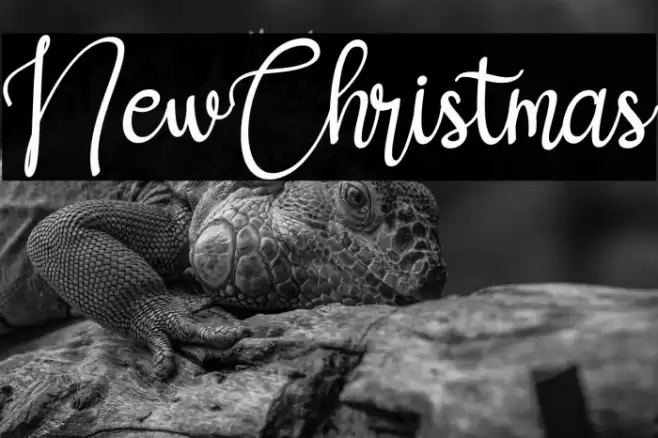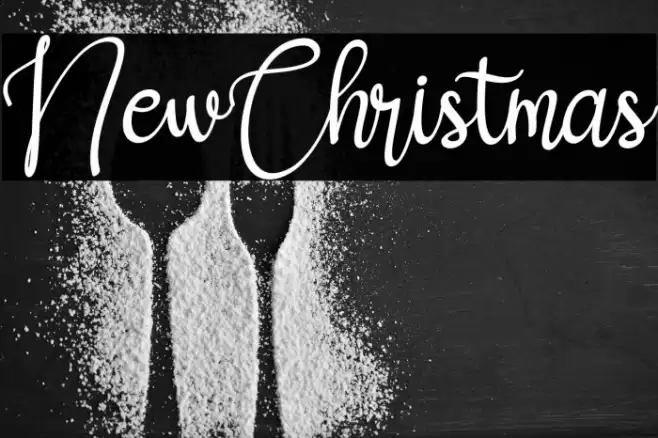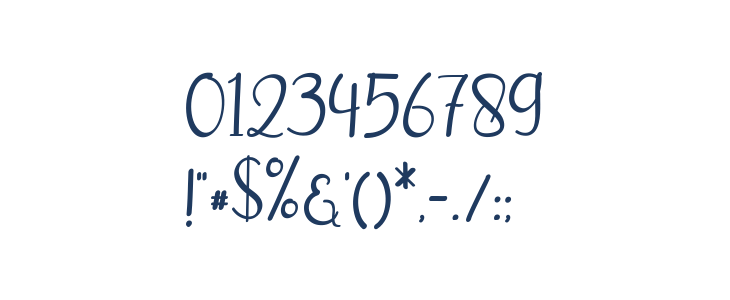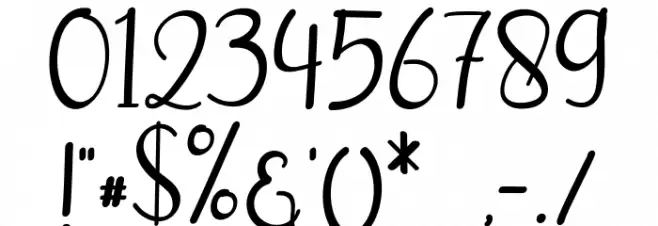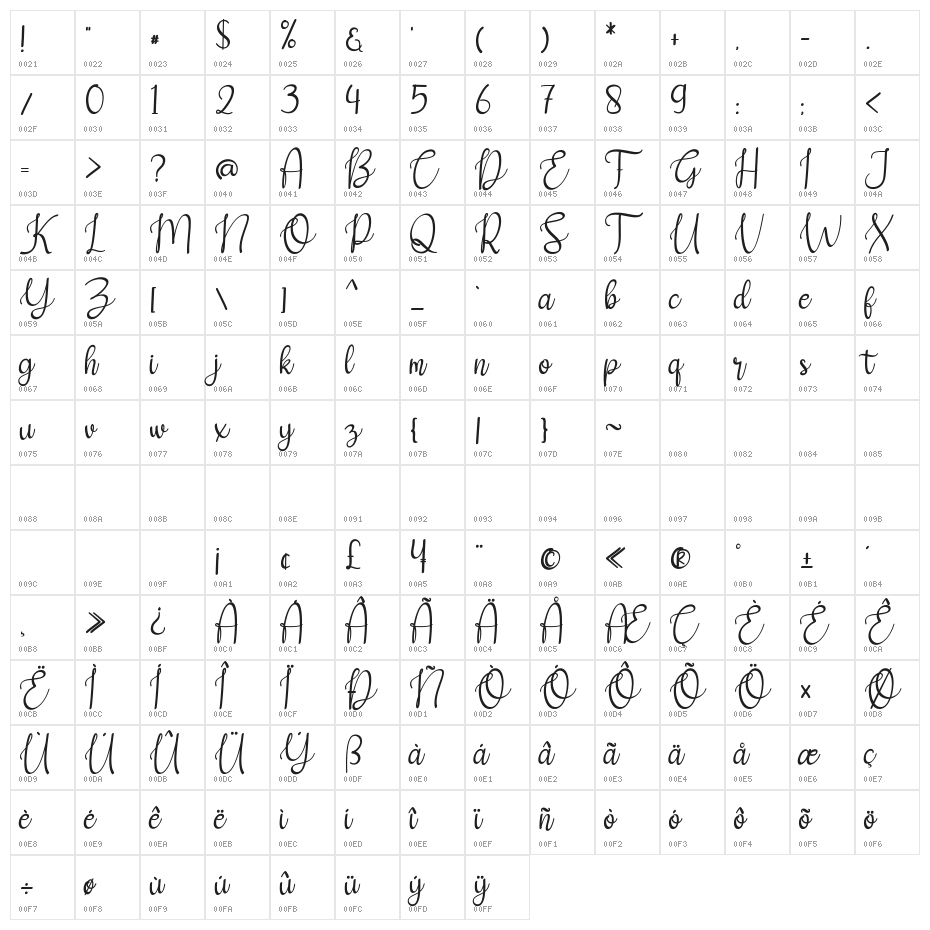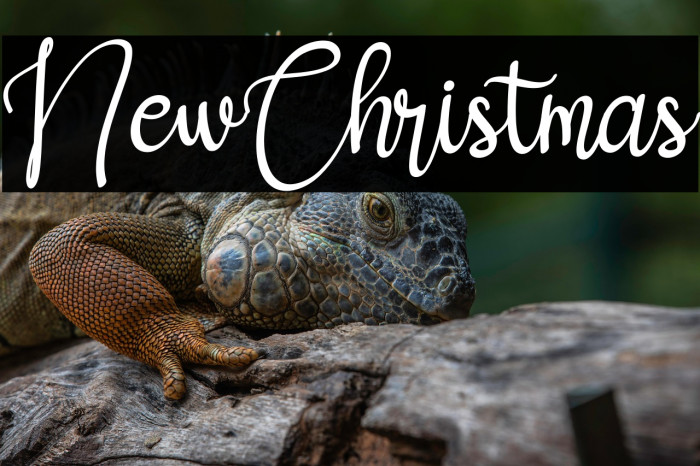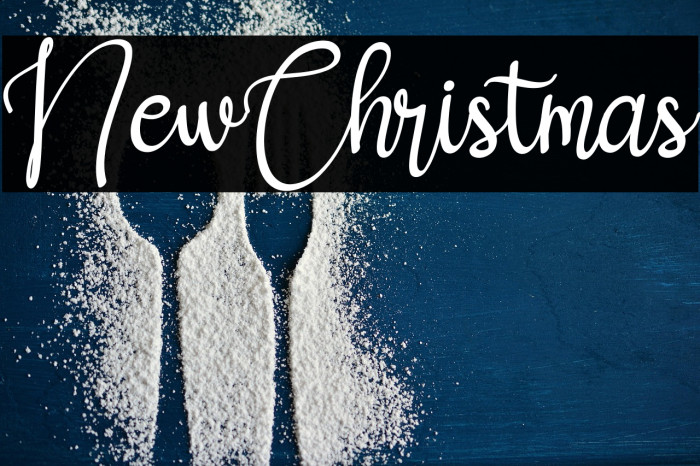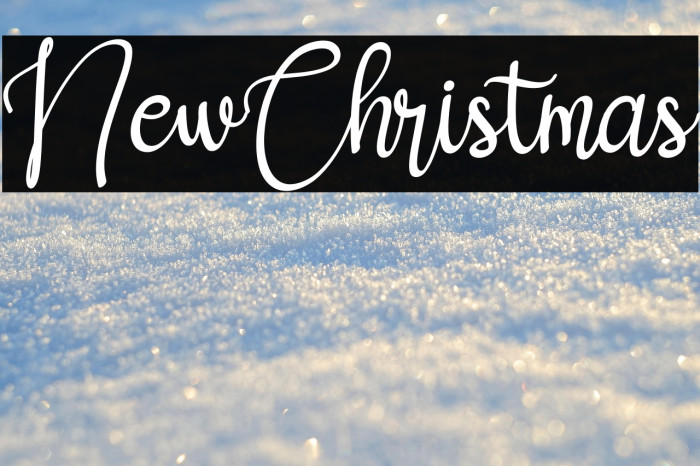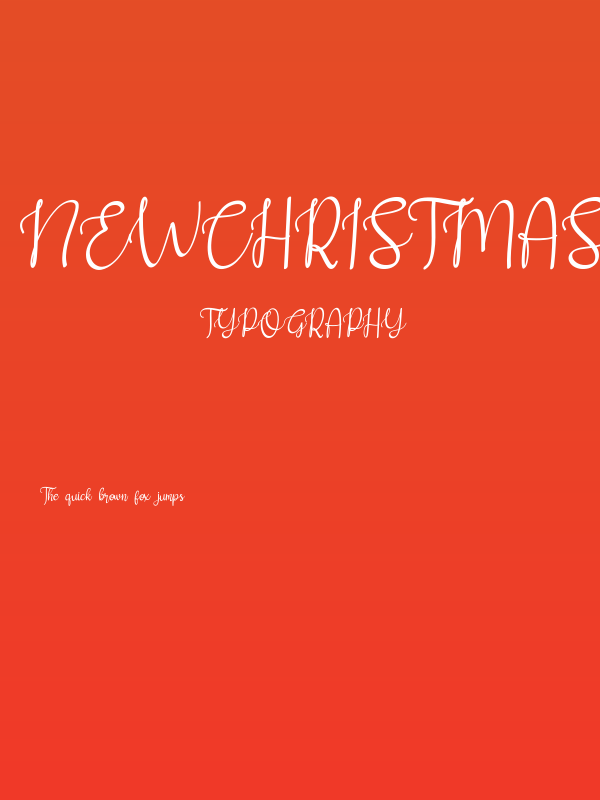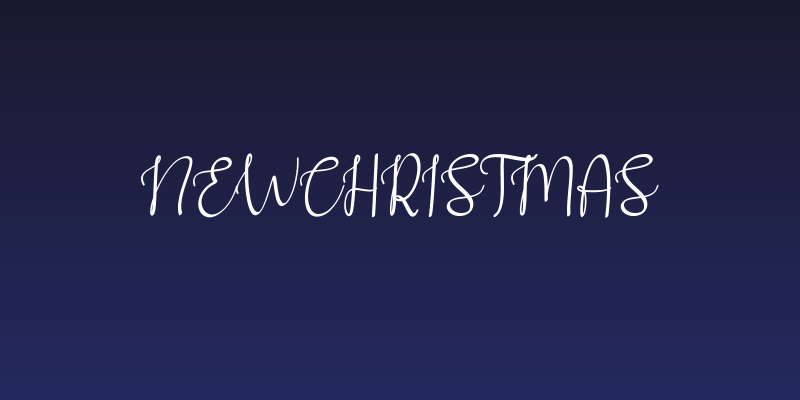
NewChristmas Font
NewChristmas Description
This font features a playful and festive script style, characterized by its flowing, cursive letters that evoke a sense of whimsy and joy. The uppercase letters are elegantly looped, while the lowercase letters maintain a consistent, smooth flow. The numerals are rounded and complement the overall style, adding to the font's charm. Special characters are creatively integrated, enhancing the font's decorative appeal. This font is ideal for creating a warm and inviting atmosphere, perfect for holiday-themed projects or any design that requires a touch of elegance and fun.
A playful, festive script font with elegant, flowing cursive letters from Regular fonts.
- Proposed Projects: Ideal for holiday cards, festive invitations, decorative posters, and playful branding.
- Use Case: Headlines, Invitations, Decorative Text